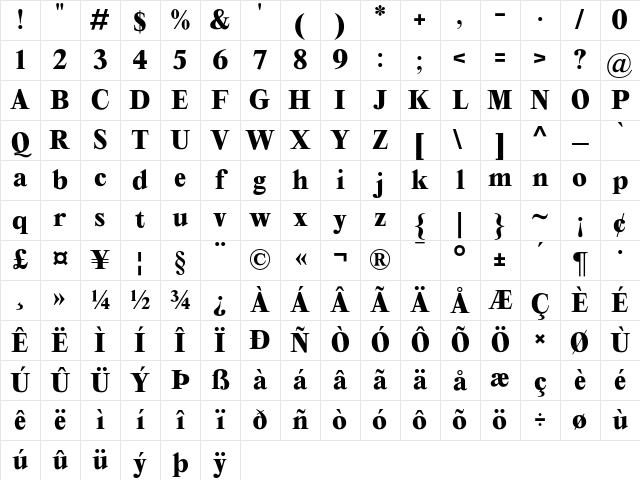
Complete Editorial New Ultrabold glyph index. Displaying only characters natively supported by Editorial New Ultrabold font.
Editorial New is a composed and adaptable typeface that performs quietly and consistently across a wide range of design contexts. Its bold stroke weight gives it real presence on the page.